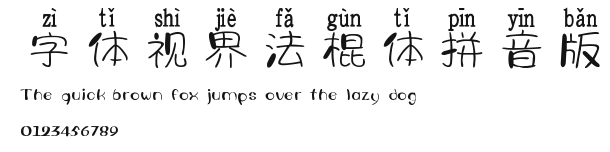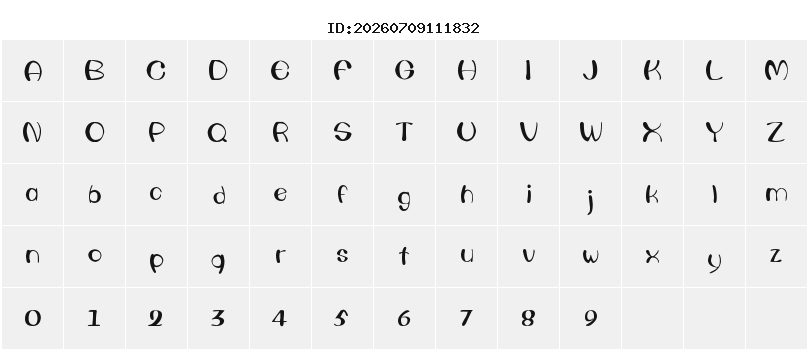
字体视界法棍体拼音版 Preview
• Font Name: 字体视界法棍体拼音版
• Full Font Name: 字体视界法棍体拼音版
• Version: Version 1.03
• PostScript Name: ZTSJ-BaguetteFontPinyin
About 字体视界法棍体拼音版.ttf
字体视界法棍体拼音版.ttf is a modern, elegant sans-serif font designed for ultimate readability and visual harmony. Perfect for branding, headlines, web design, and print materials.